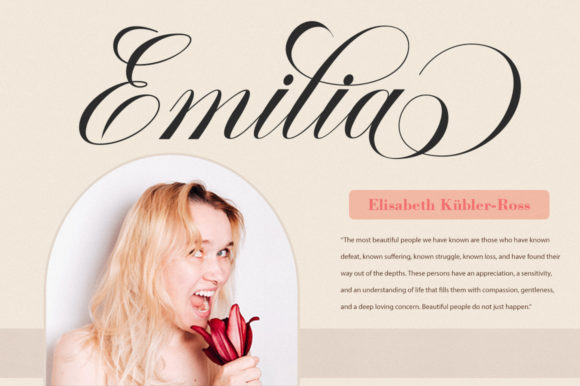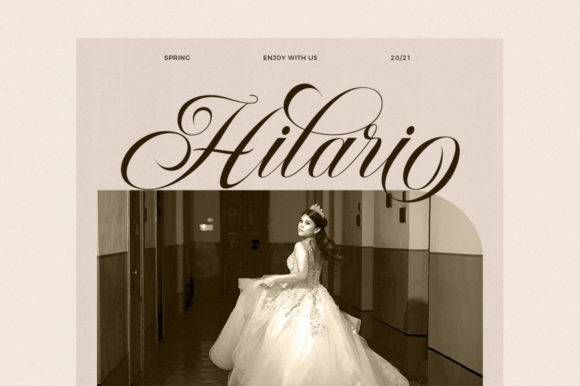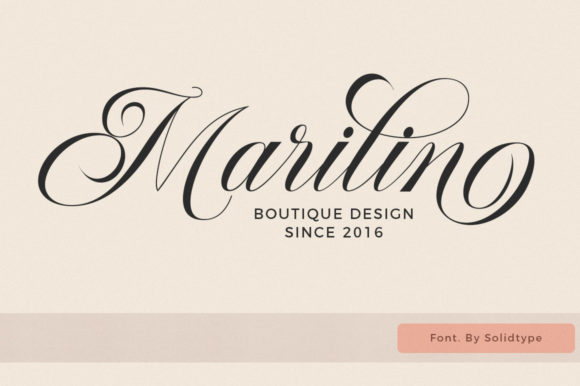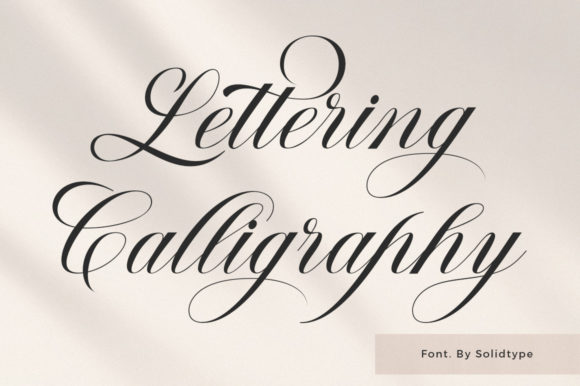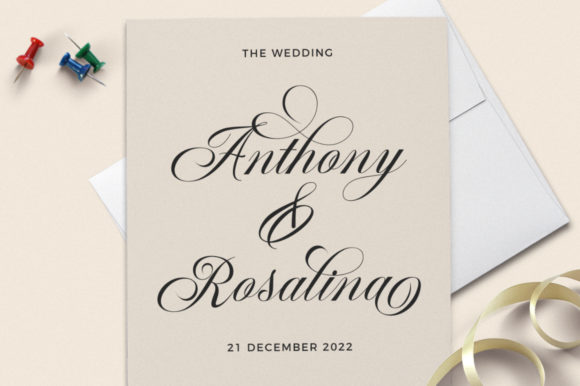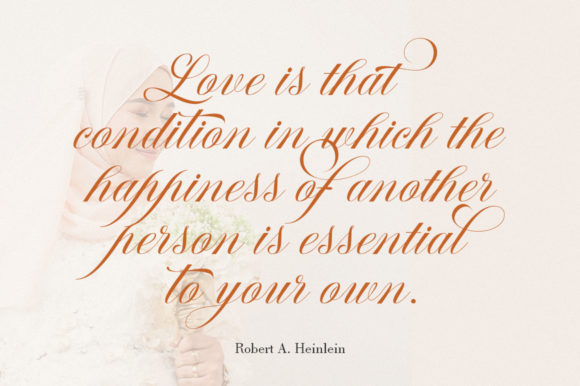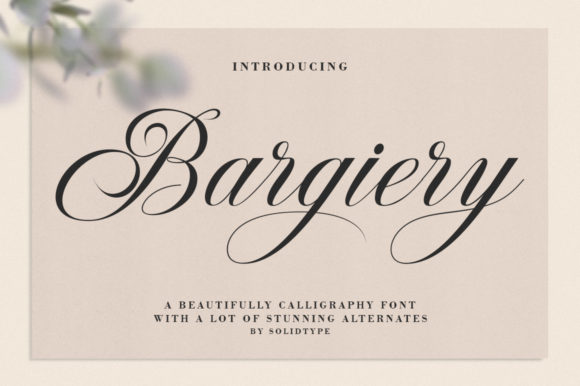
Bargiery Font: The Ultimate Romantic Calligraphy Typeface for Designers and Crafters
Are you looking for a font that exudes romance, sweetness, and elegance? Look no further than Bargiery Font! This stunning calligraphy typeface is perfect for designers and crafters who want to add a touch of sophistication and personality to their designs. In this article, we’ll dive into the features and benefits of Bargiery Font, and explore how it can elevate your creative projects.
What is Bargiery Font?
Bargiery Font is a romantic and sweet calligraphy typeface that is designed to make your designs stand out. Its characters dance along the baseline, creating a beautiful and fluid motion that is sure to capture the attention of your audience. This font is perfect for a variety of design projects, including wedding invitations, thank you cards, weddings, greeting cards, logos, and more.
One of the standout features of Bargiery Font is its PUA (Private Use Area) encoding. This means that you can access all of the glyphs and swashes with ease, giving you complete creative control over your designs. With PUA encoding, you can effortlessly navigate through the font’s extensive character set, including ligatures, alternates, and swashes, to create unique and personalized designs.
Perfect for Personalized Designs
Bargiery Font is designed to add a touch of personality to your designs. Its romantic and sweet style makes it perfect for projects that require a personal touch, such as wedding invitations, greeting cards, and thank you cards. The font’s elegant and flowing script also makes it ideal for logos, branding, and packaging designs that require a sophisticated look.
So, what are the benefits of using Bargiery Font for designers and crafters? Here are just a few:
- Elegant and sophisticated designs: Bargiery Font adds a touch of elegance and sophistication to any design project, making it perfect for high-end clients or personal projects.
- Easy to use: With PUA encoding, accessing glyphs and swashes is a breeze, making it easy to create unique and personalized designs.
- Versatile: Bargiery Font can be used for a wide range of design projects, from wedding invitations to logos and branding.
- Time-saving: With its extensive character set, Bargiery Font saves you time and effort in creating custom designs from scratch.
In conclusion, Bargiery Font is a stunning calligraphy typeface that is perfect for designers and crafters who want to add a touch of romance, elegance, and sophistication to their designs. With its PUA encoding, elegant style, and versatility, Bargiery Font is an excellent choice for a wide range of design projects. Whether you’re creating wedding invitations, logos, or greeting cards, Bargiery Font is sure to elevate your designs and make them stand out.